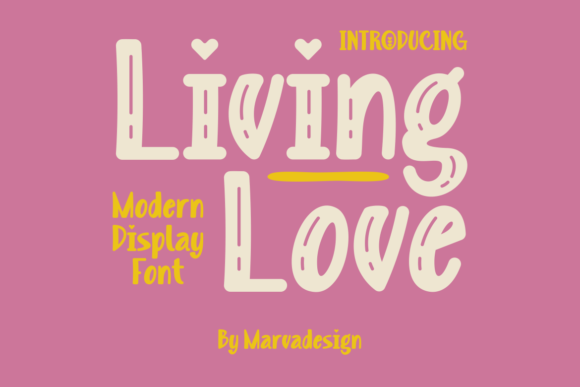
Embark on a captivating typographic journey with Living Love Font, an extraordinary display font family that exudes both romance and modernity. Crafted by the ingenious Marvadesign, this font collection is a visual masterpiece, embodying elegance and beauty in each exquisitely designed letterform.
Journey through the realm of Living Love Font and discover a world of graceful curves and delicate details that captivate the senses. Each letter is meticulously crafted to create a sense of charm and sophistication, evoking the essence of timeless romance and contemporary chic. Ideal for crafting wedding invitations that radiate elegance, greeting cards that convey heartfelt sentiments, and designs that yearn for a touch of luxury, Living Love Font elevates your creative endeavors to new heights.
Prepare to be captivated by the font's PUA encoding, an innovative feature that grants you effortless access to a world of glyphs and swashes. Unleash your creativity and explore endless possibilities, transforming your designs into captivating works of art.
Embrace the power of Living Love Font and witness the transformation of your creative vision. Whether you seek to create enchanting wedding invitations that capture the essence of love, heartfelt greeting cards that convey the warmth of your emotions, or simply designs that radiate a touch of sophistication and luxury, this font family is your ultimate companion.